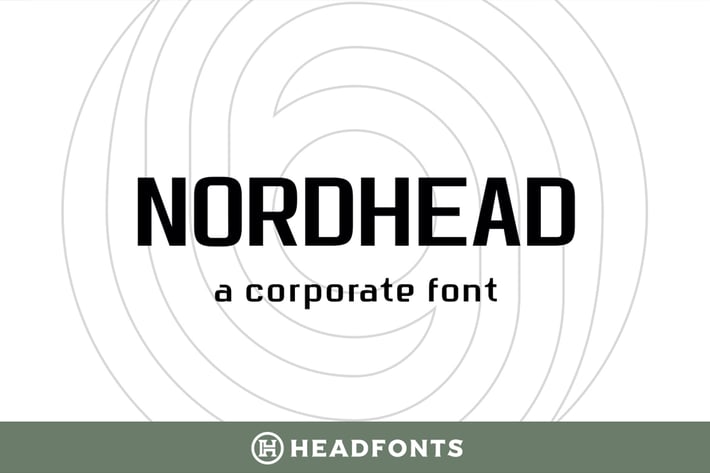
Nordhead Business & Corporate Font
NORDHEAD is a modern, sans serif corporate inspired font. This font has upper and lowercase characters with bold, modern look and gentle curves, allowing you to create minimal and straightforward designs. This font is clean, simple and versatile, perfect for business and corporate branding and a great choice for titles and posters. Nordhead can also be used for small articles and occasional texts.
The font has 258 glyphs, extensive latin script language support, characters set A-Z , numerals and punctuation.